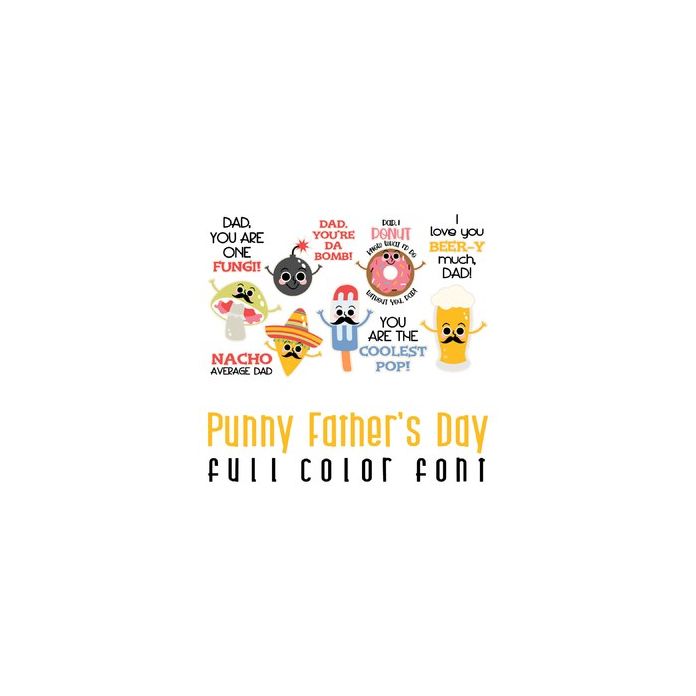
This adorable full color doodlebat font features fun puns and imagery perfect for Father's Day. Use it to create fun cards, crafts, gifts, decor, scrap book pages, planner stickers and more!